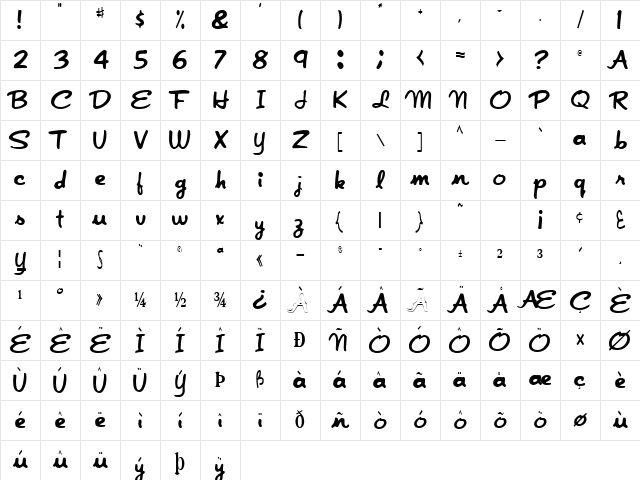
Japan Regular
Japan Family
Design Context for Japan
Japan is a composed and adaptable typeface that performs quietly and consistently across a wide range of design contexts.